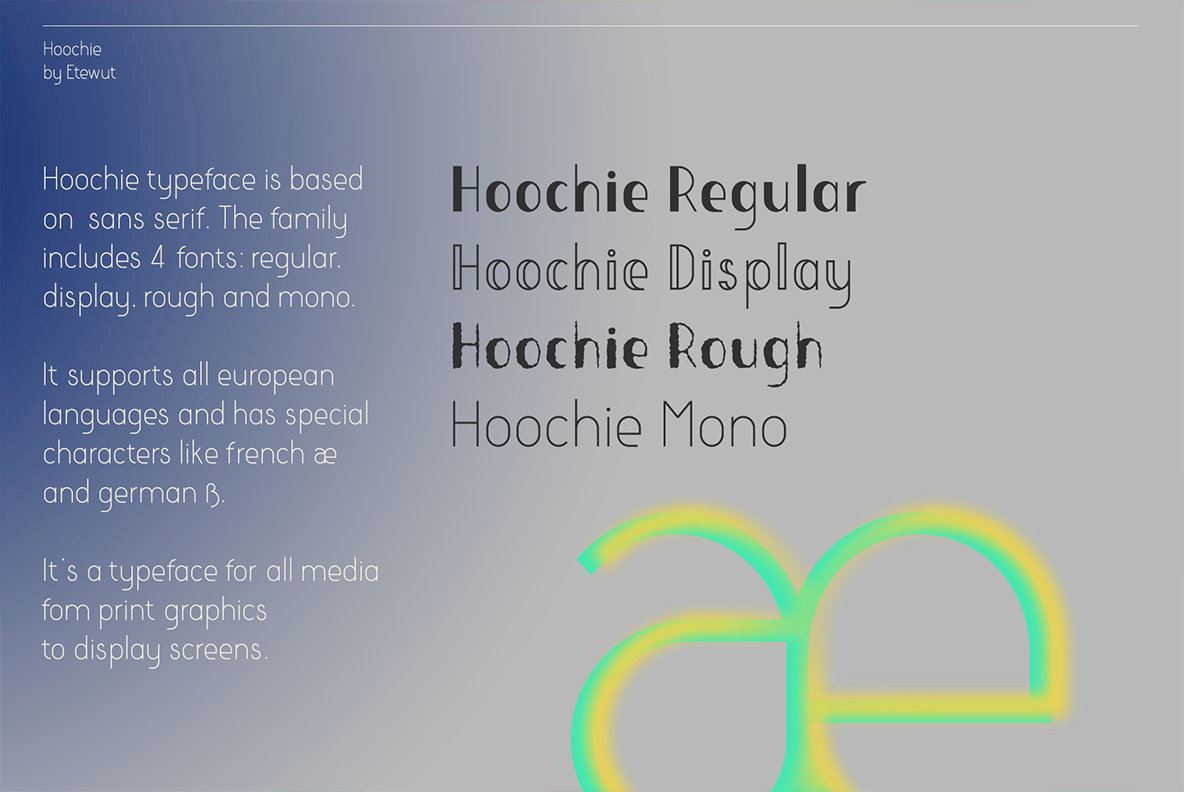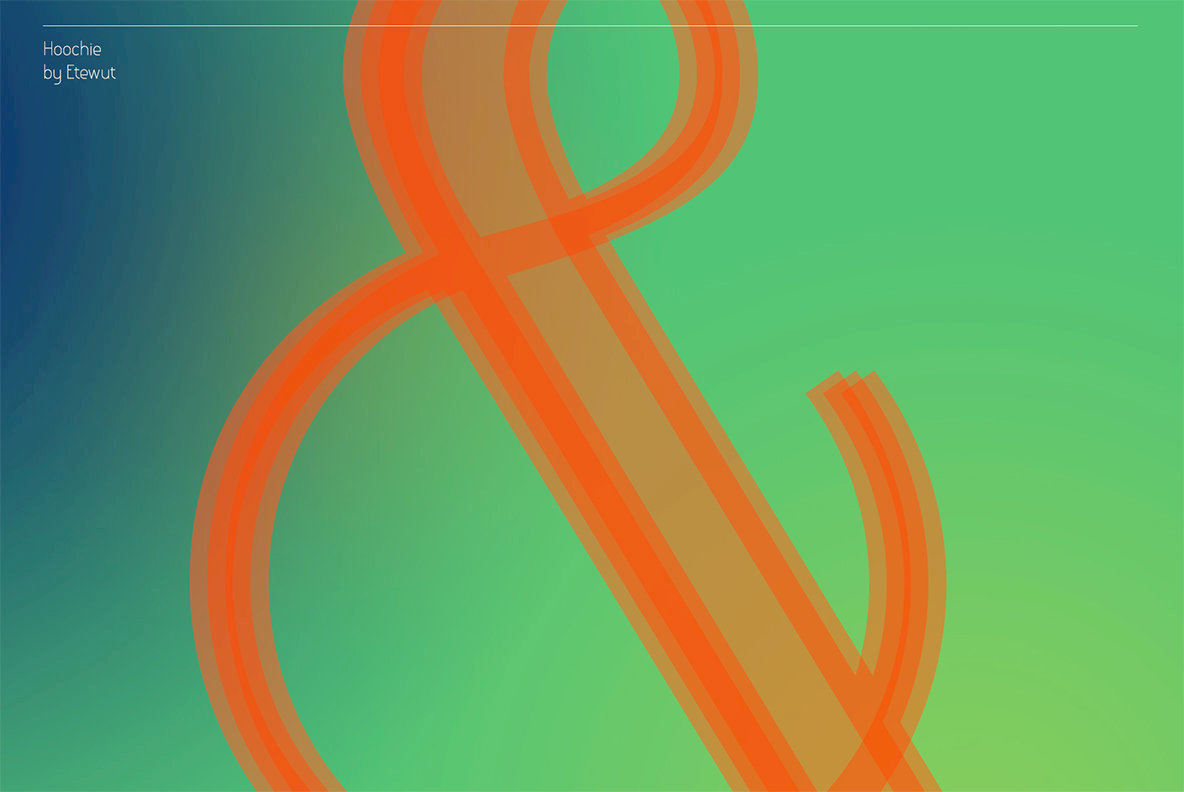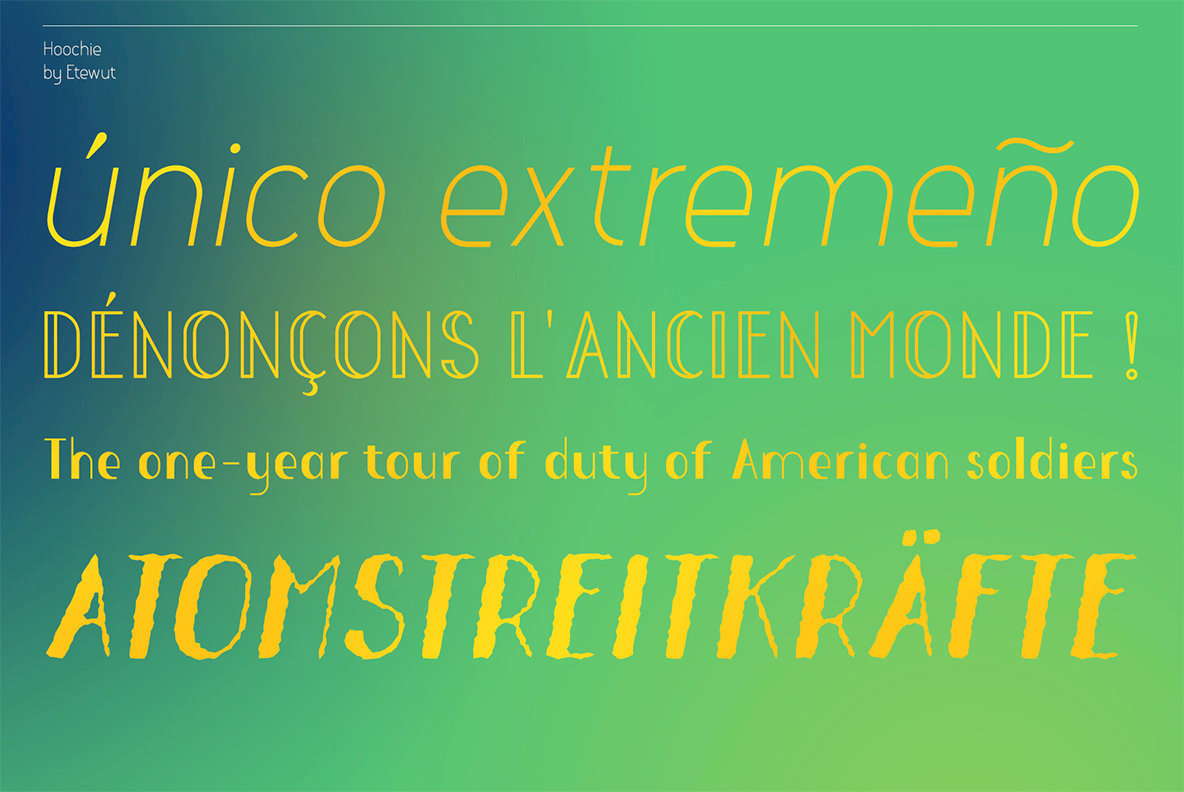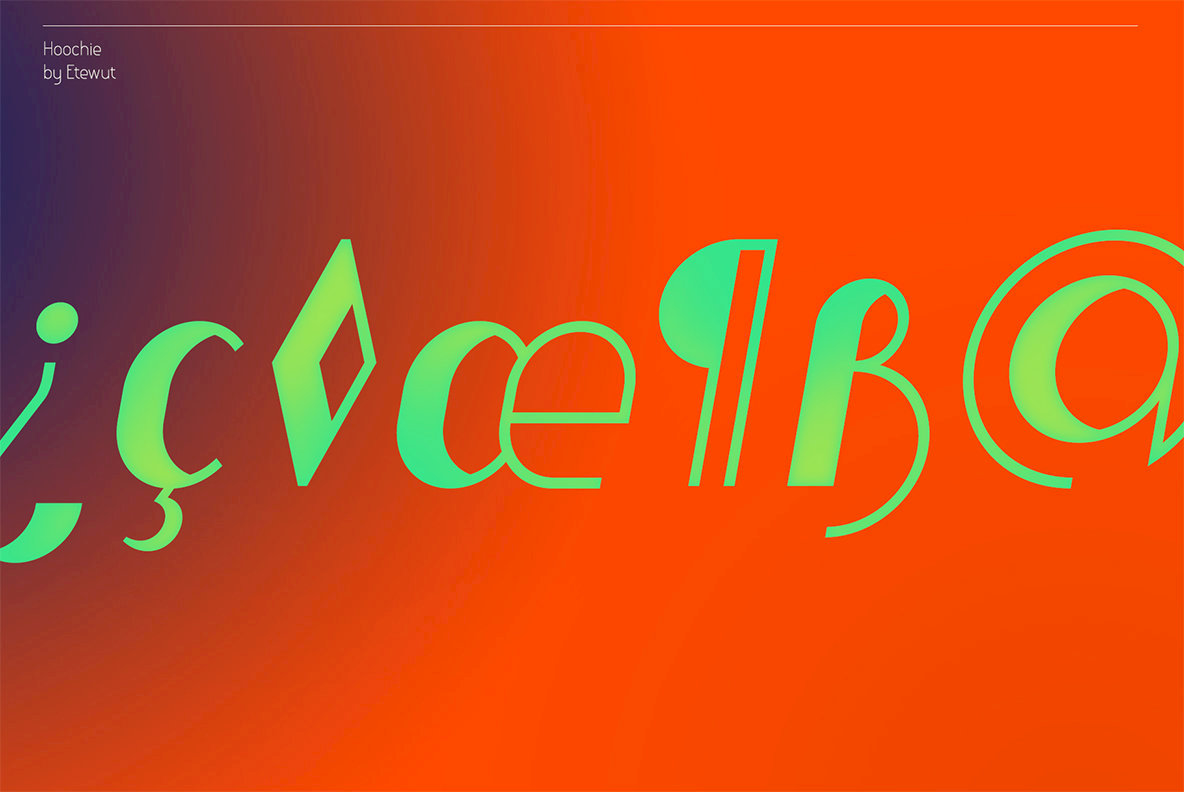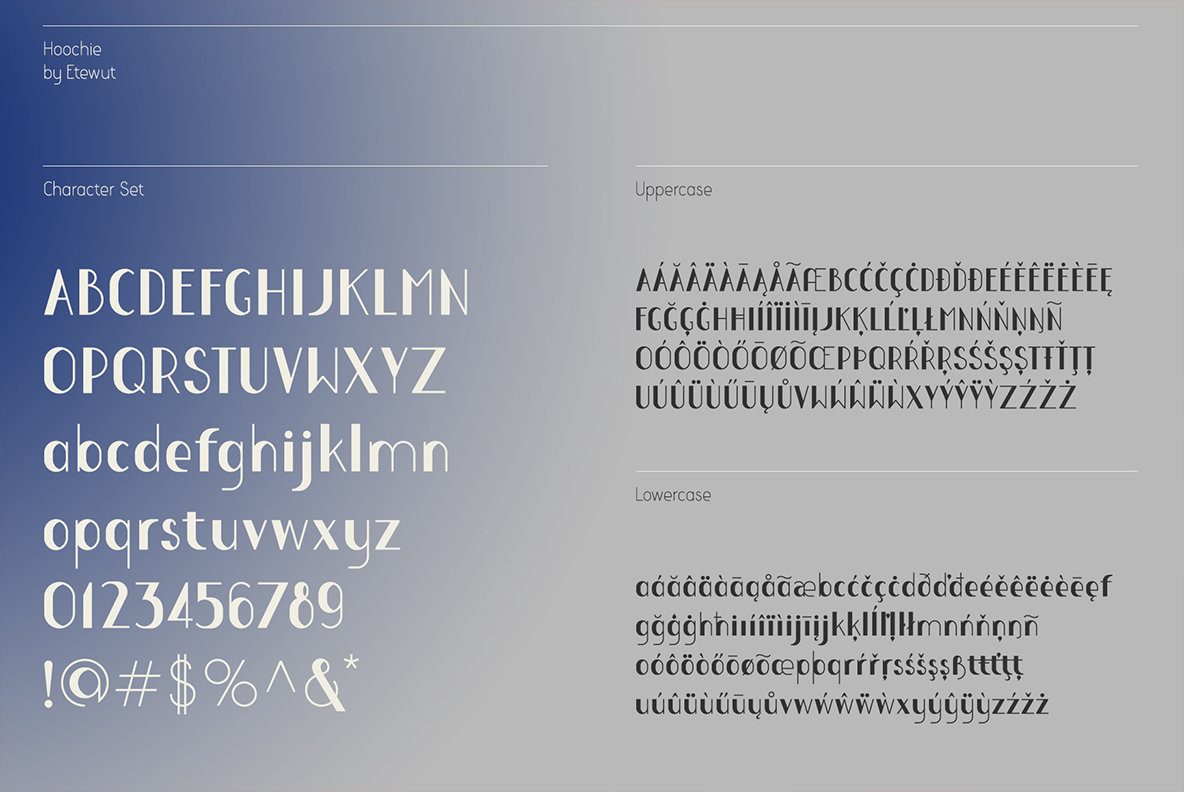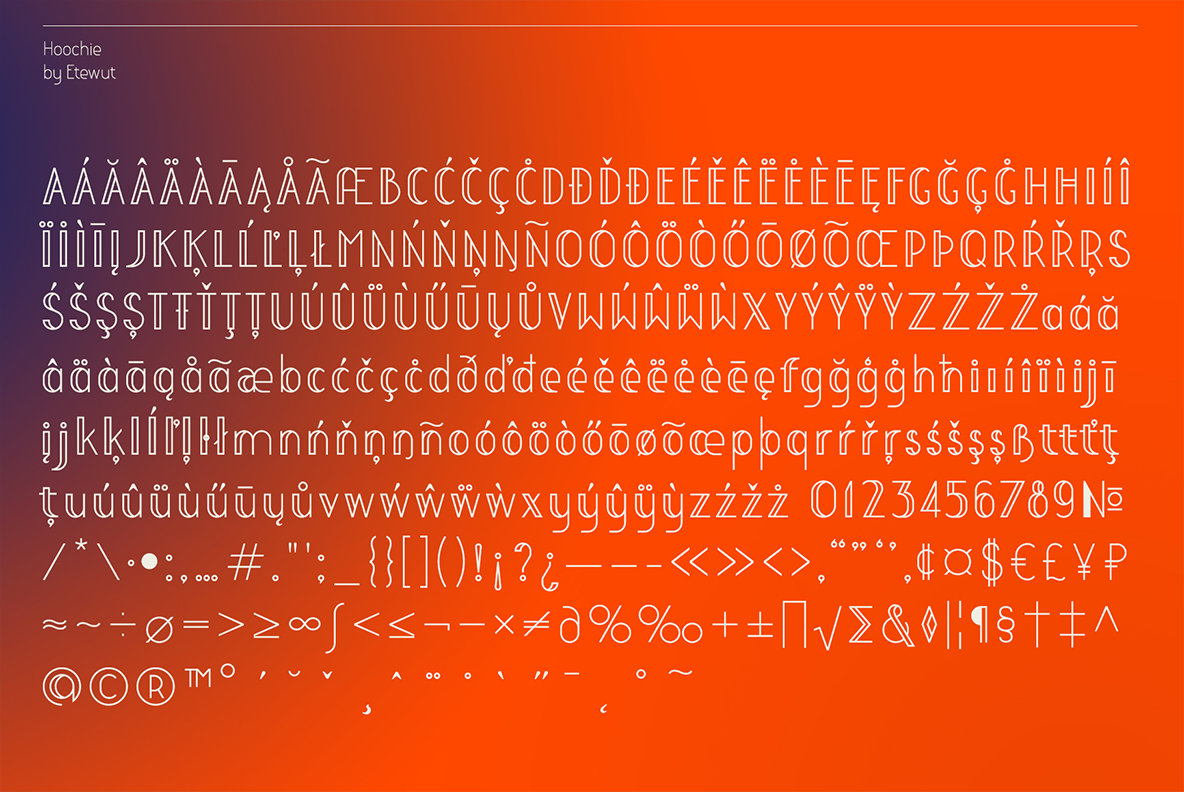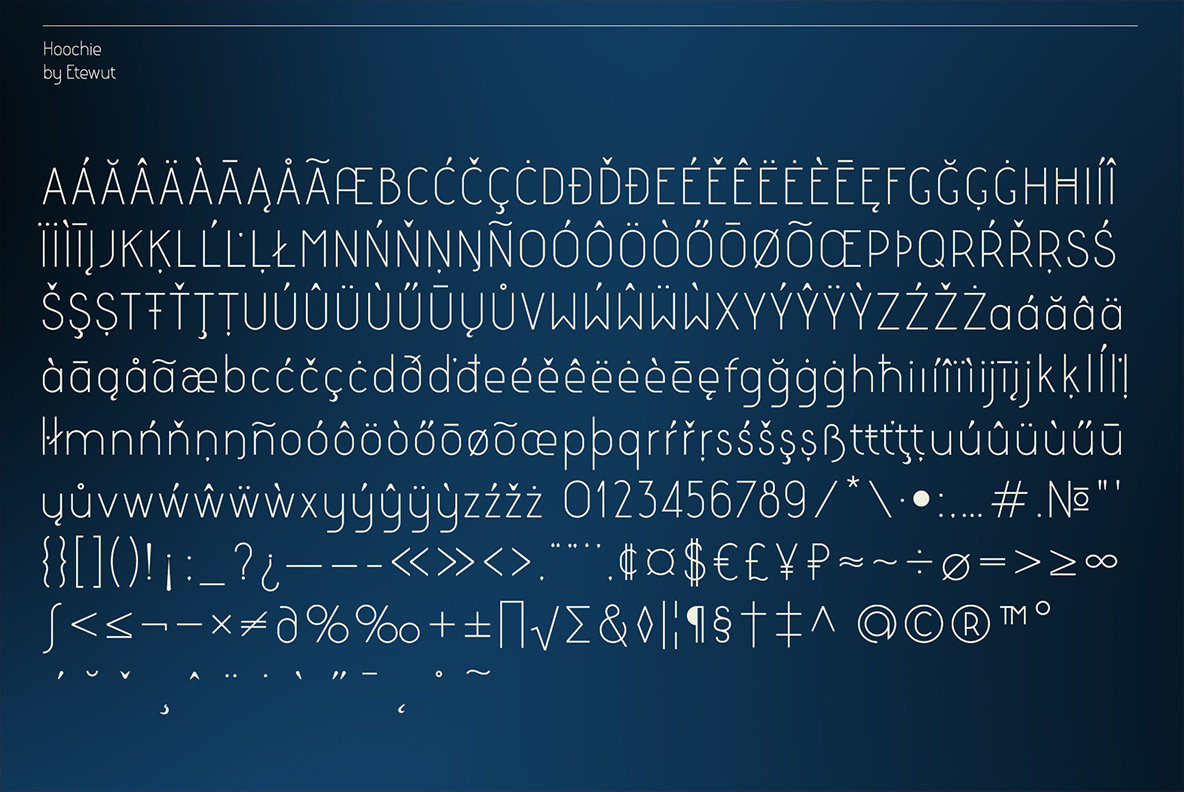
Hoochie Font
Hoochie is a display font family based on sans serif. It has 4 styles: regular, display, mono and rough. All european languages with special characters are included.